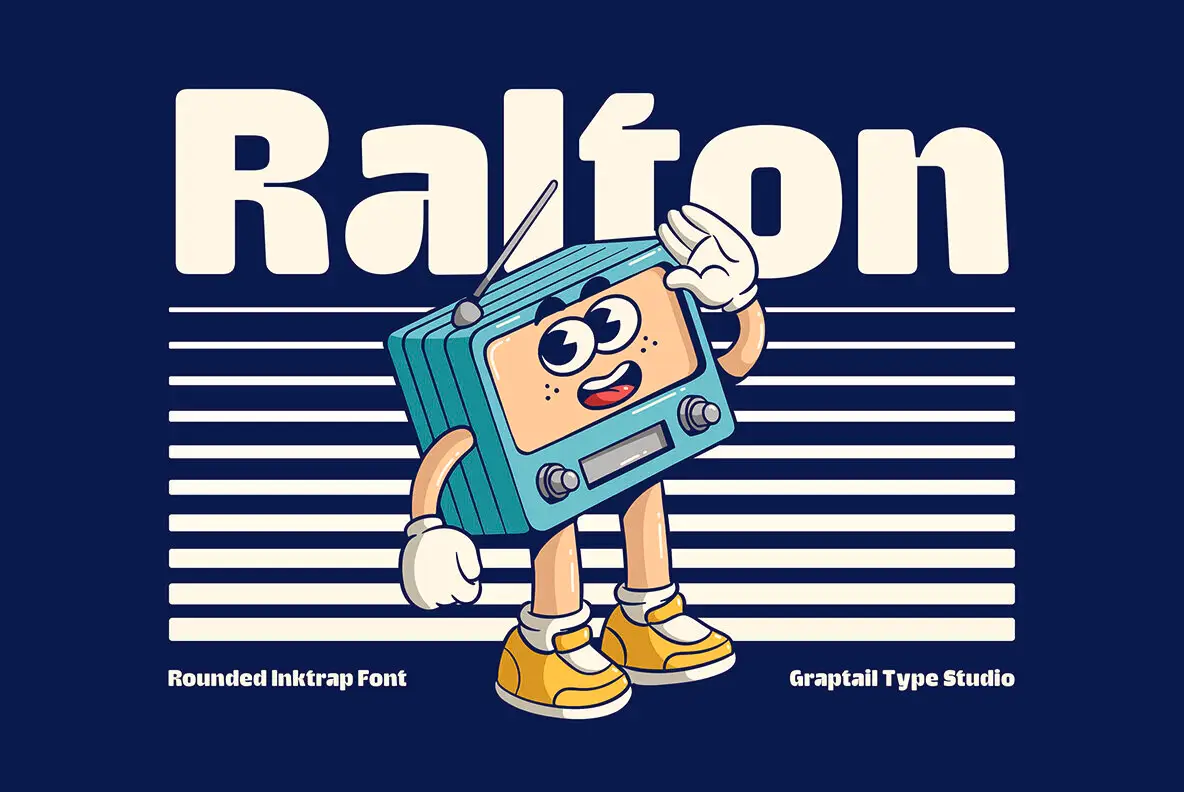
Ralton Font
Ralton Black
Ralton is a rounded inktrap typeface that seamlessly merges classic retro aesthetics with a contemporary touch. Its smooth curves and subtle inktraps offer a unique personality while ensuring excellent readability for diverse design requirements. Ideal for applications such as branding, vintage posters, logos, and packaging, Ralton adds a nostalgic allure without losing its modern edge. It channels the vibrant spirit of the '70s to early '90s, making it an excellent choice for projects seeking retro charm and creative flair.Ralton: Nostalgic Inktrap Font with Modern Flair